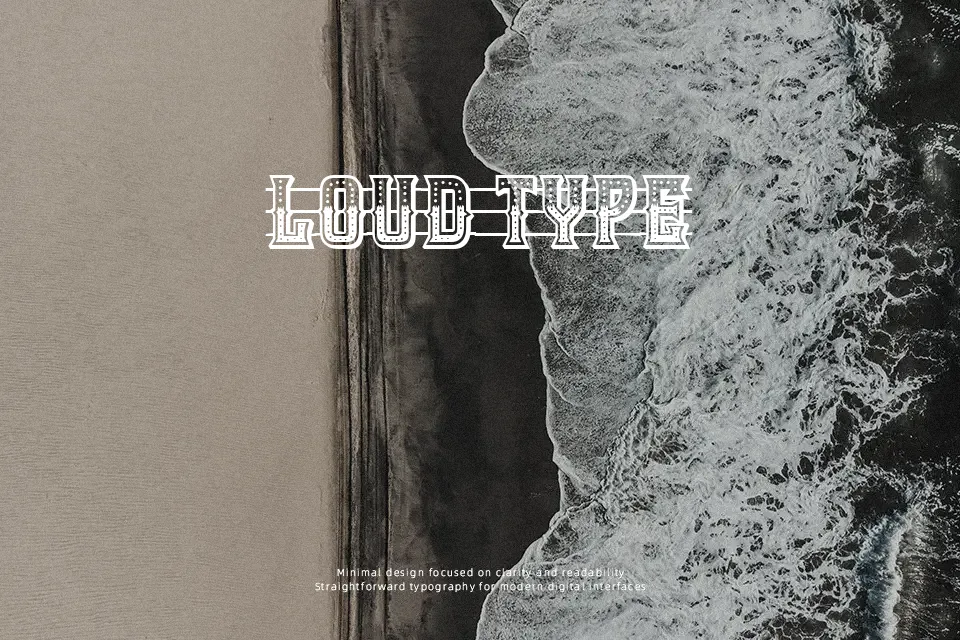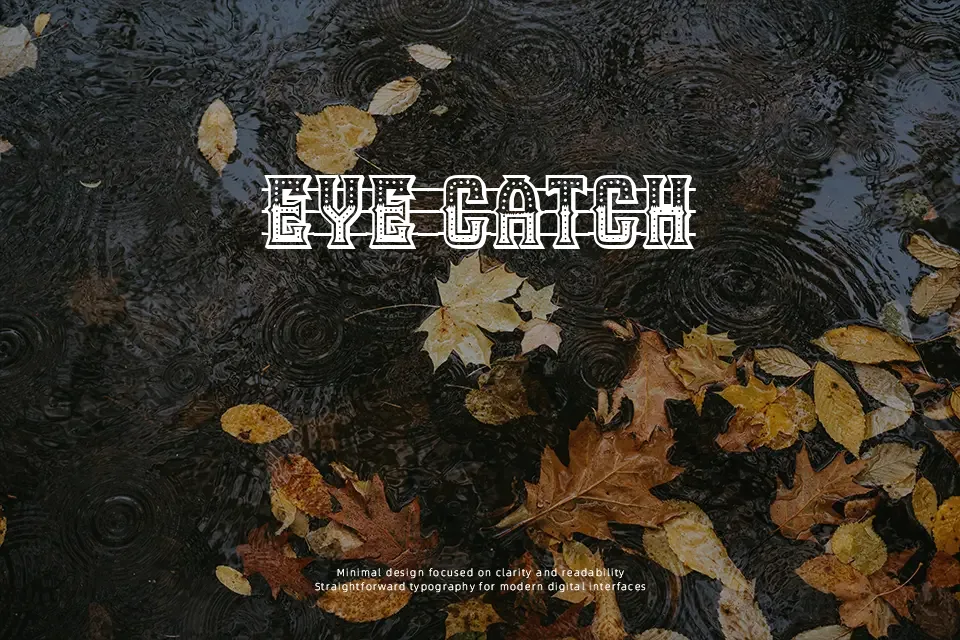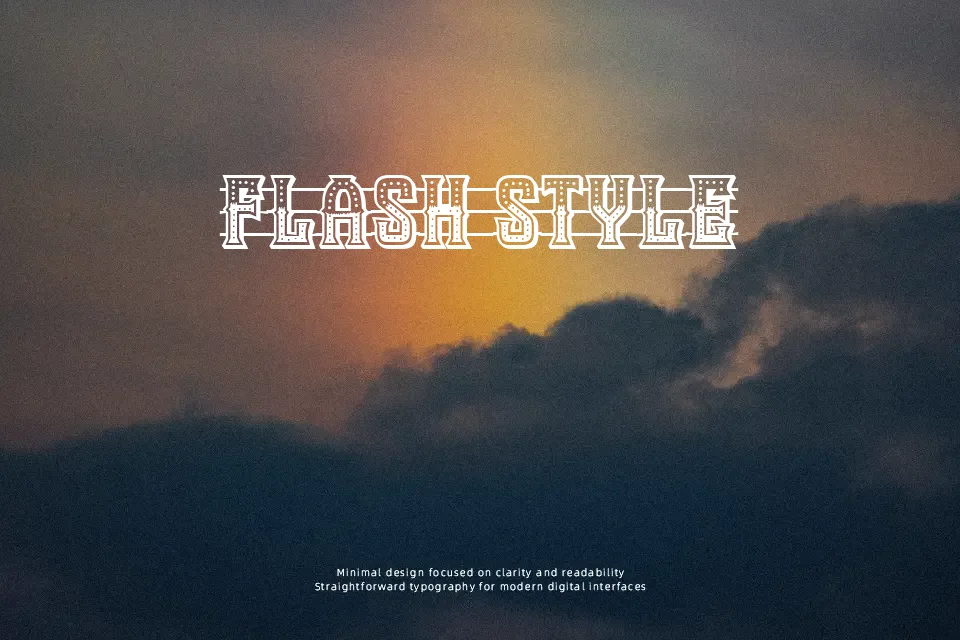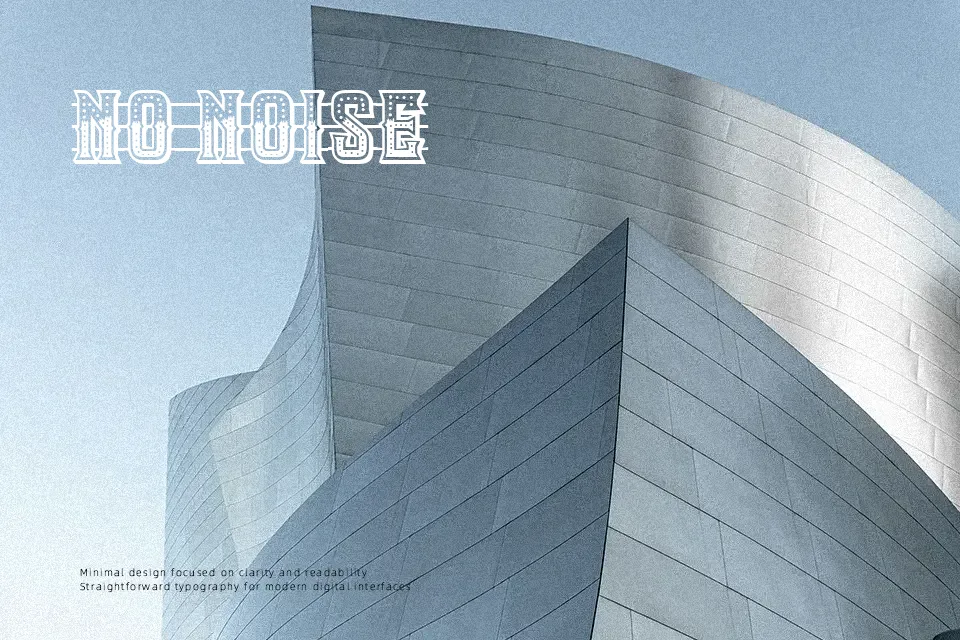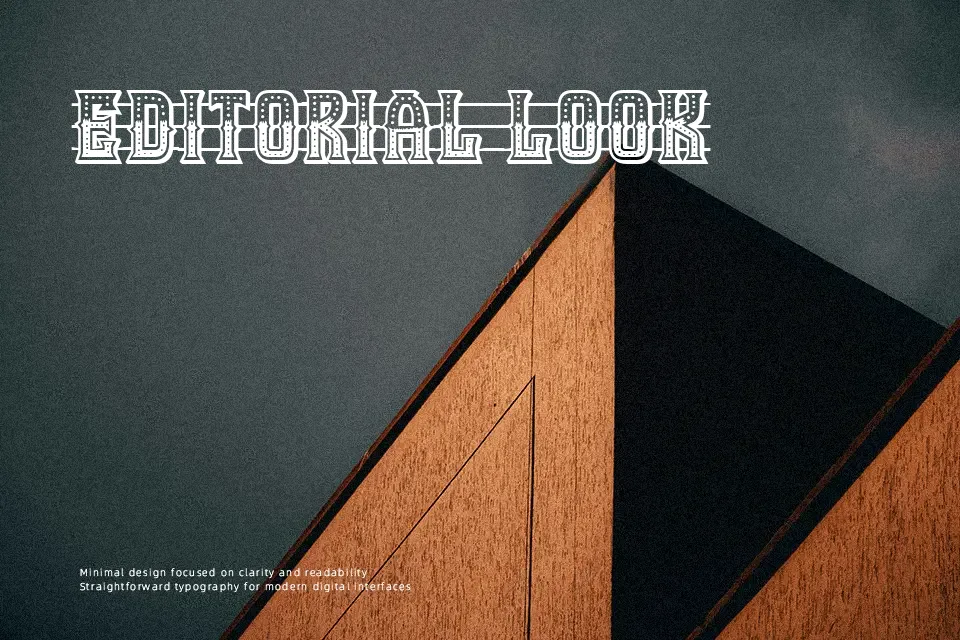
Sword Font
Sword Font uses narrow, angular letterforms with pointed terminals and a distinctly decorative silhouette. The strokes appear firm and mostly consistent in weight, while the close proportions create a compact, high-impact line of text. Its uppercase-focused character set reads most clearly in large headlines, logos, and title treatments, where the sharp outlines remain visible. The spacing supports a concentrated display setting rather than relaxed reading. In practical use, the typeface gives short words a strong fantasy or action-oriented presence, but its stylized shapes become harder to scan in small sizes or extended copy.
Perfect for film, gaming, and headline, with a bold and decorative style.